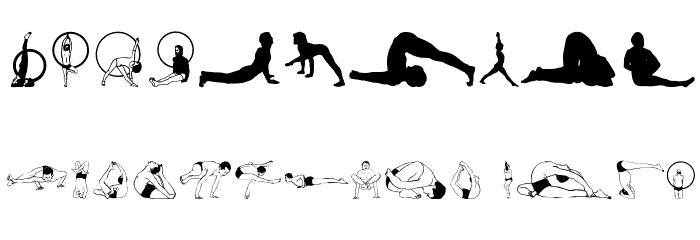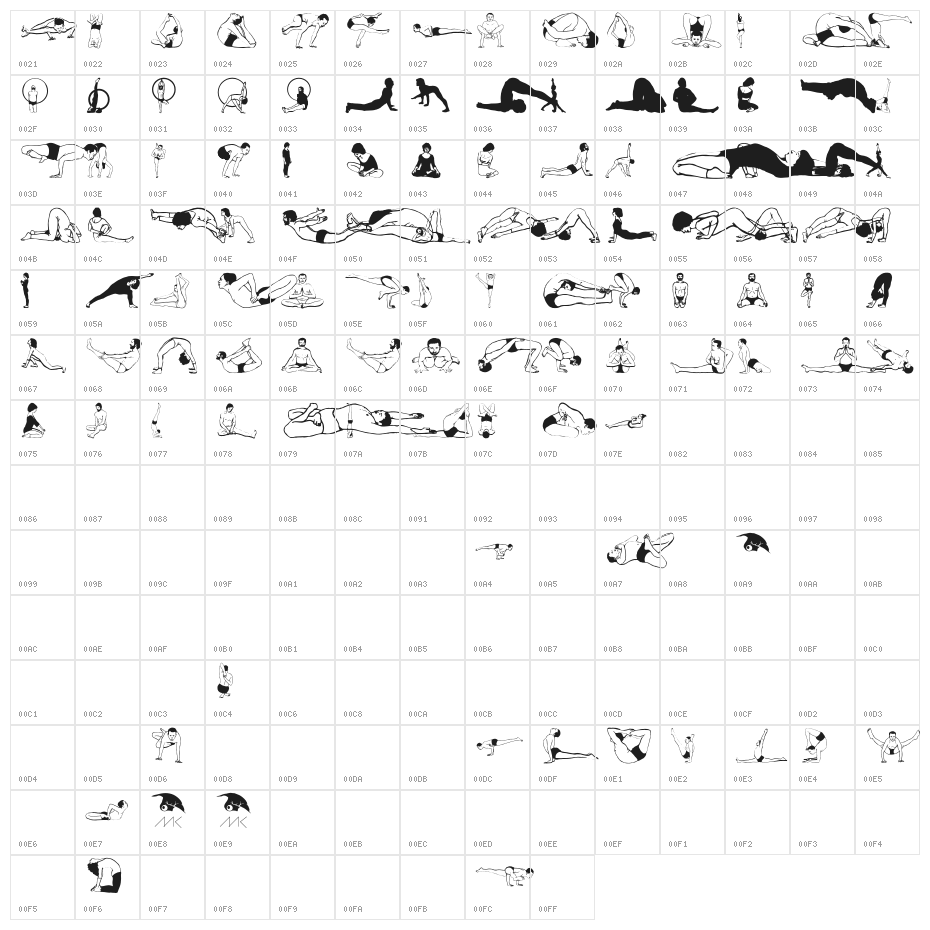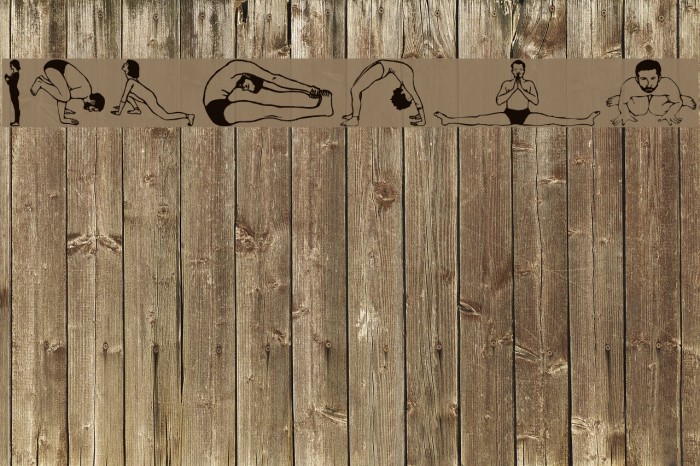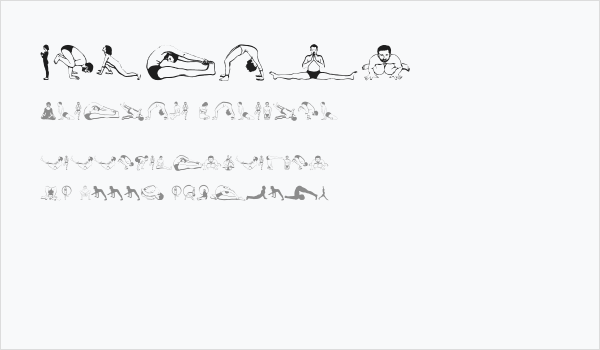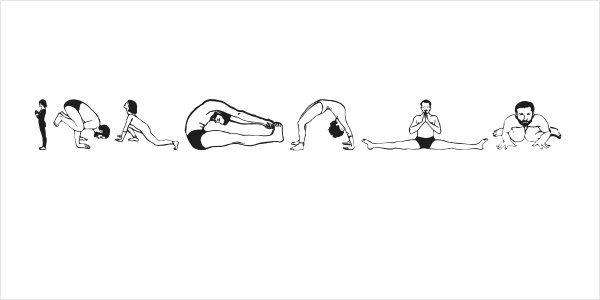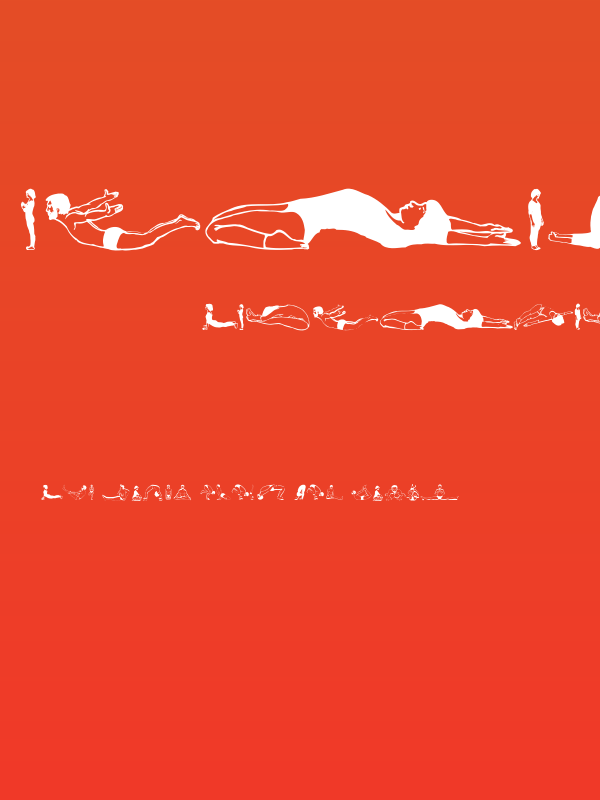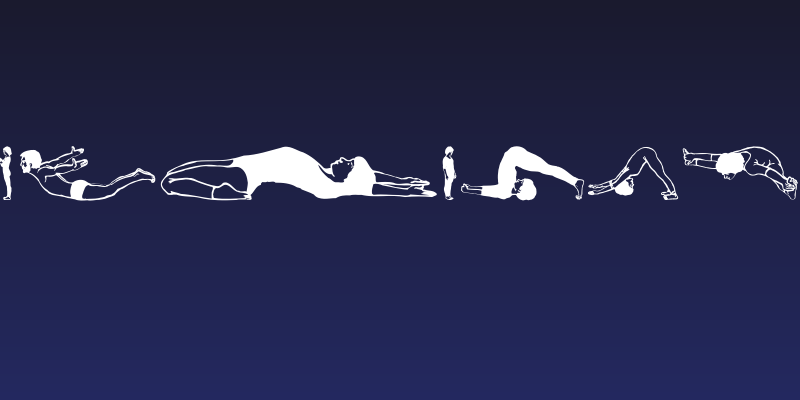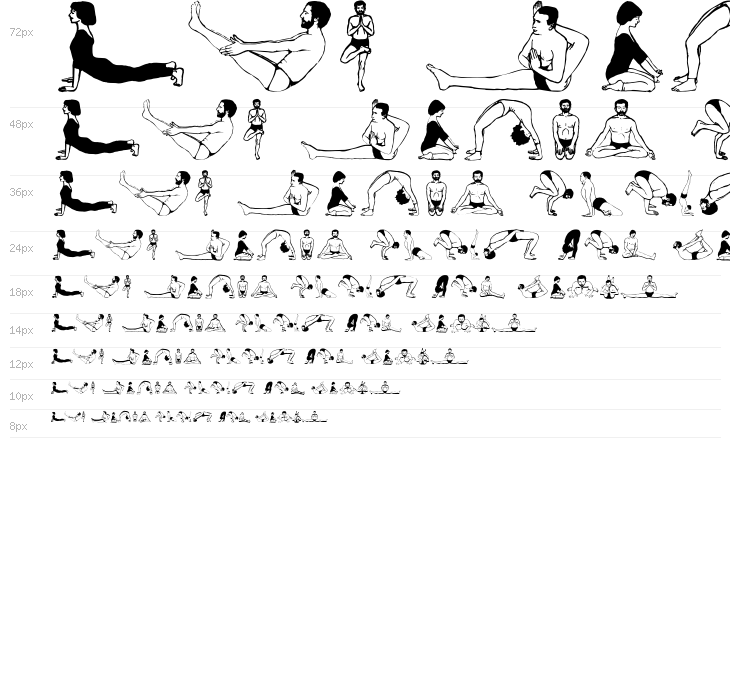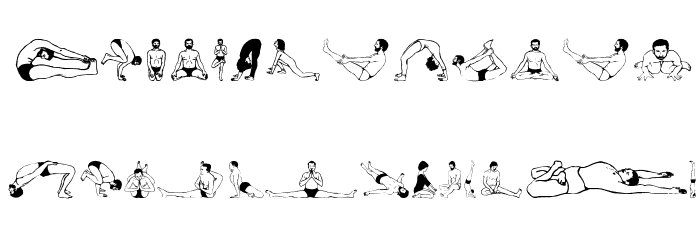
Yogaism Font
Yogaism Description
A decorative display font where each character is formed by stylized illustrations of people performing various yoga poses, creating a playful and thematic visual effect. The figures are detailed and expressive, making each letter unique and easily distinguishable within the context of the theme.